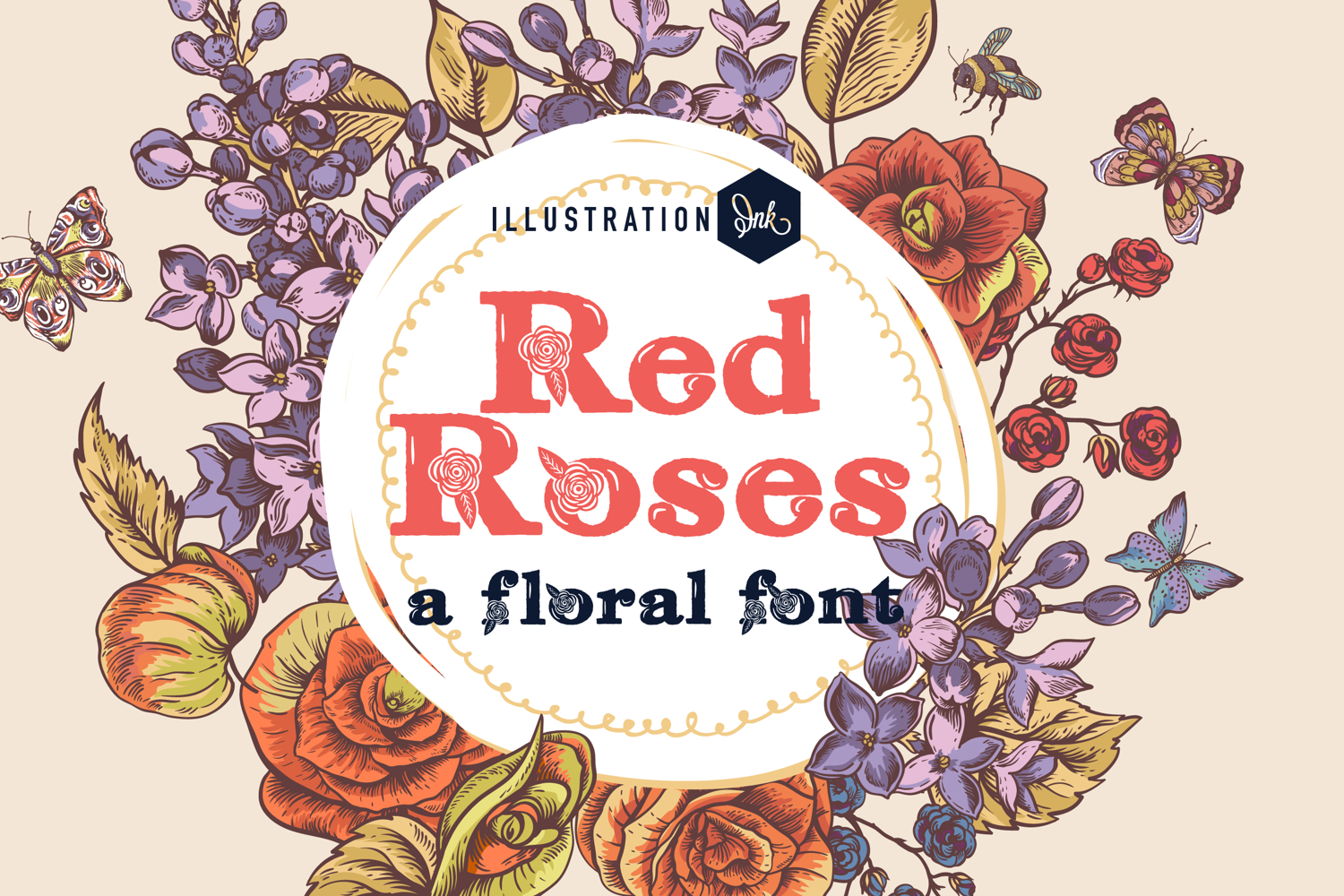
Red Roses Font Family
This hand-crafted font is a sports roses with 6 variations.
• The letters are not perfectly uniform in size or shape.
• There may be slight variations in the spacing between letters and words.
• The font may have a "wiggly" or "squiggly" appearance.
• The font may be difficult to read at small sizes.